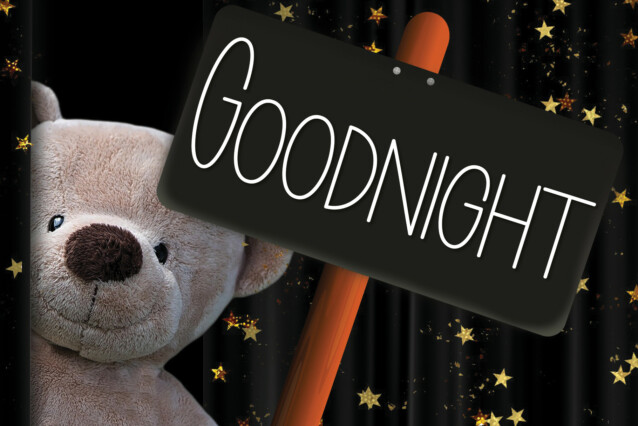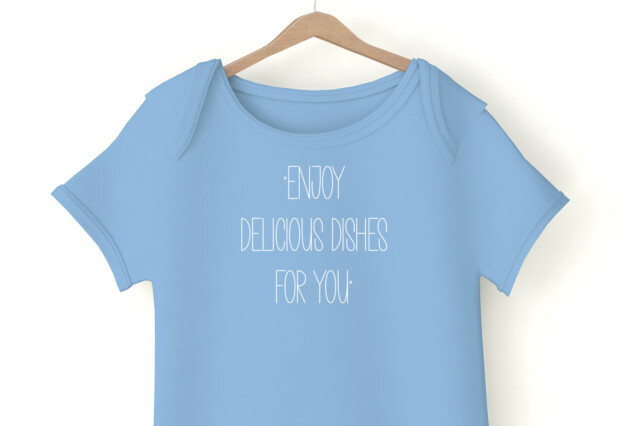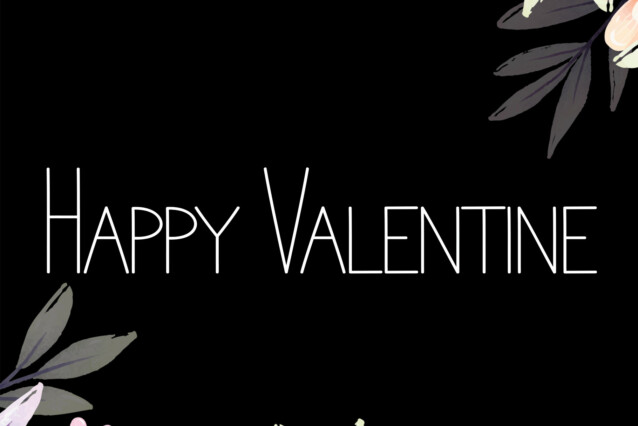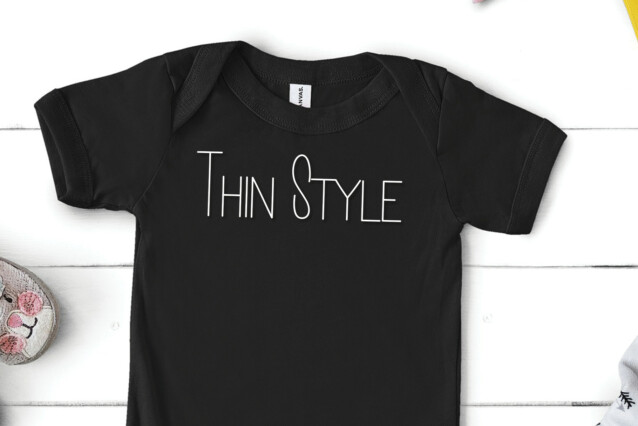
Simple Minimalist Display Font
Simple Minimalist Display Font is a cool and relaxed handwritten font. This versatile font has a wide spectrum of applications ranging from greeting cards to headlines and is guaranteed to add a neat and natural feel to your next project!